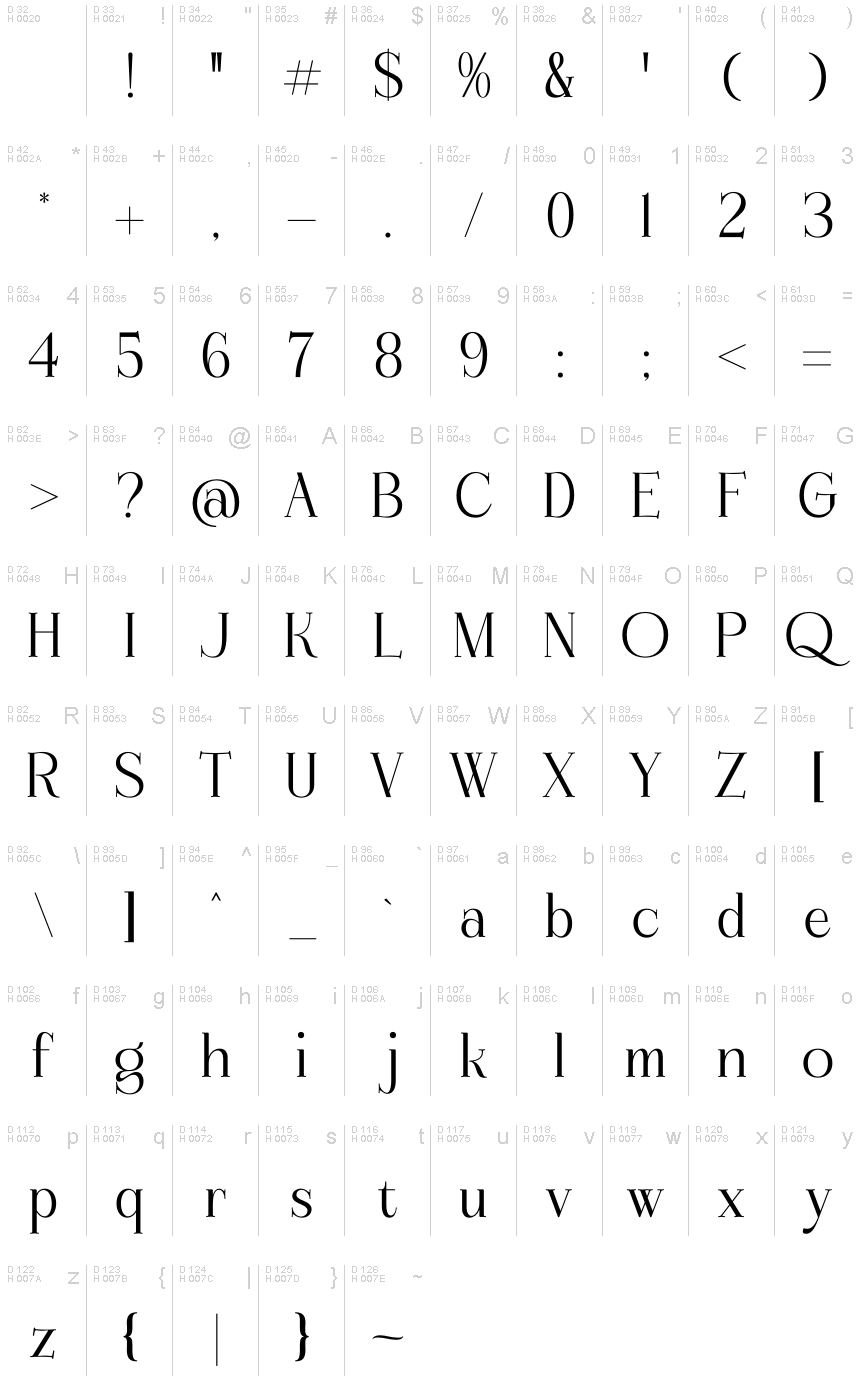
MAHENA
Mahena, a captivating serif font crafted by Storytype Studio, exudes a refined elegance with its condensed design. The striking letterforms blend graceful curves and sharp, angular serifs, creating a harmonious balance that commands attention. This font's versatile personality seamlessly transitions between formal and modern aesthetics, making it a versatile choice for a wide range of design projects.
The font's condensed width lends itself to impactful headlines and eye-catching titles, while its serene, yet powerful presence can elevate body text and subtitles. Mahena's unique character and refined sophistication make it an excellent selection for branding, editorial design, and high-end marketing collateral, where a touch of elegance is desired.